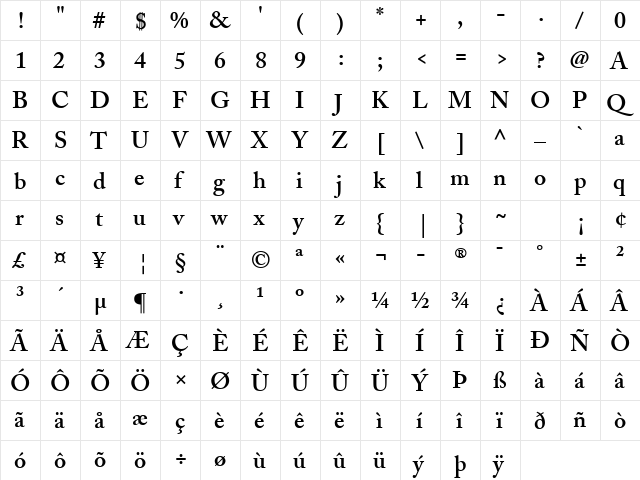
Adobe Caslon Pro Bold
| Designer | Carol Twombly |
Design Context for Adobe Caslon Pro Typeface
Adobe Caslon Pro takes a measured approach to typography — its balanced proportions and neutral character make it a reliable workhorse for both digital and print work. Its bold stroke weight gives it real presence on the page.